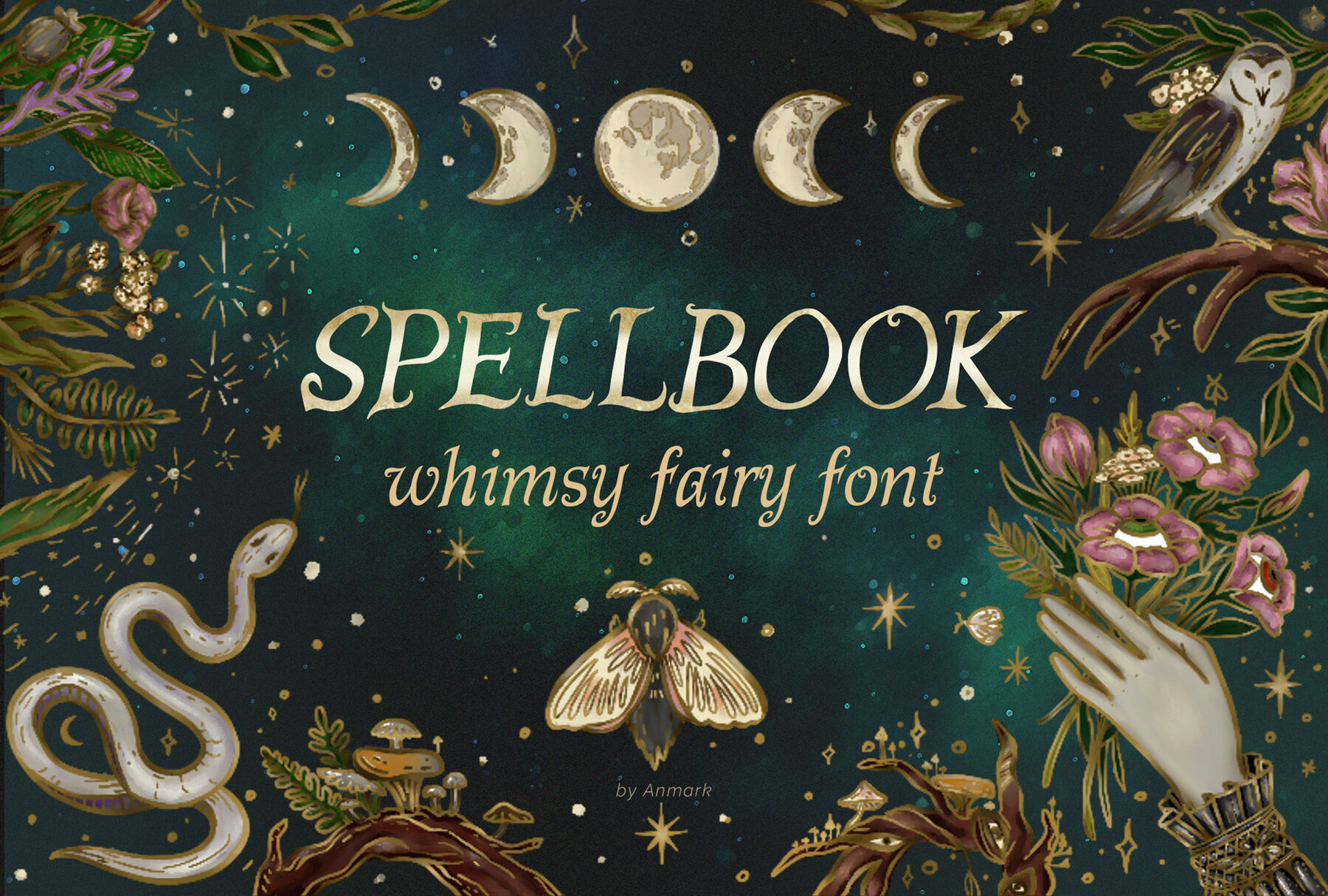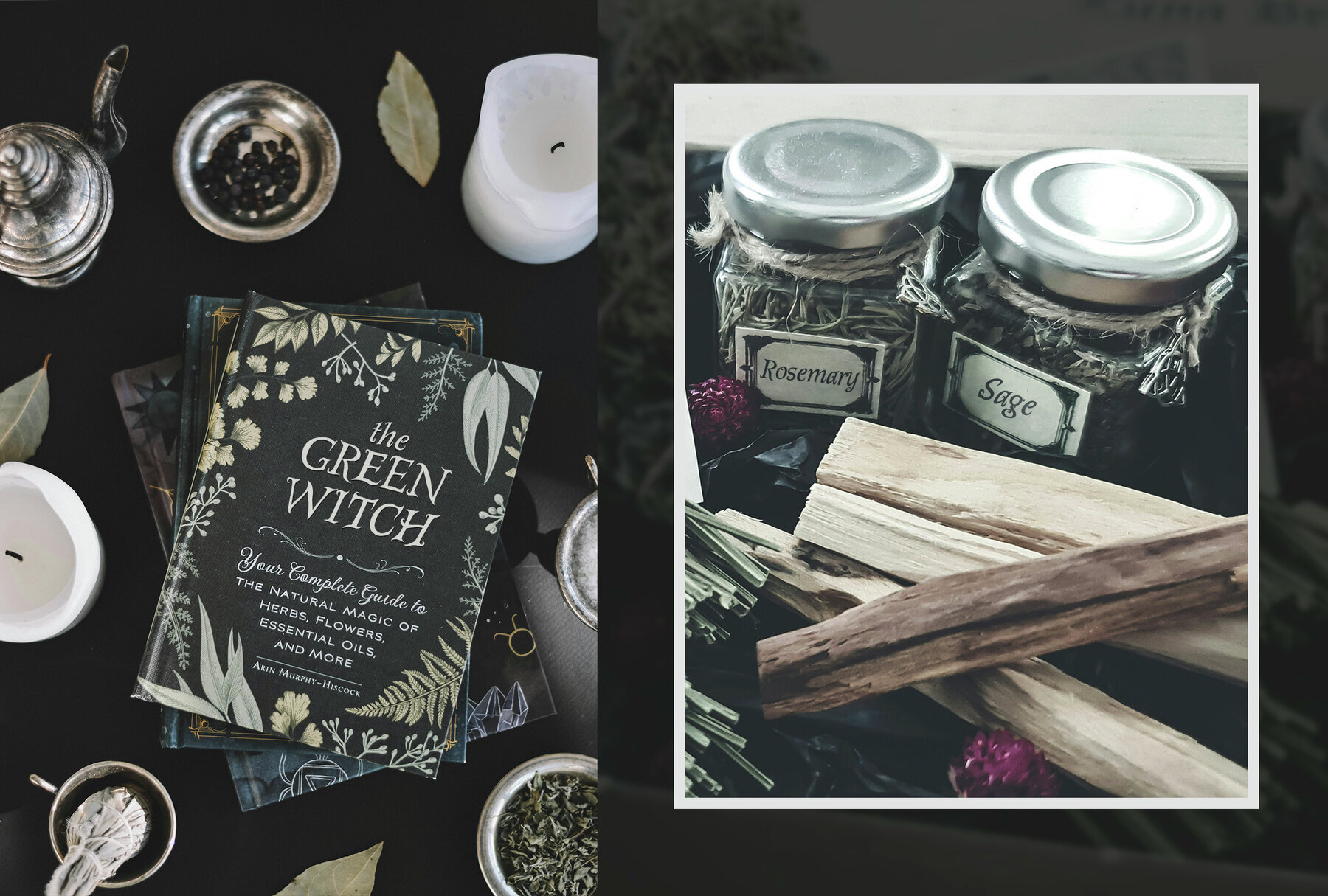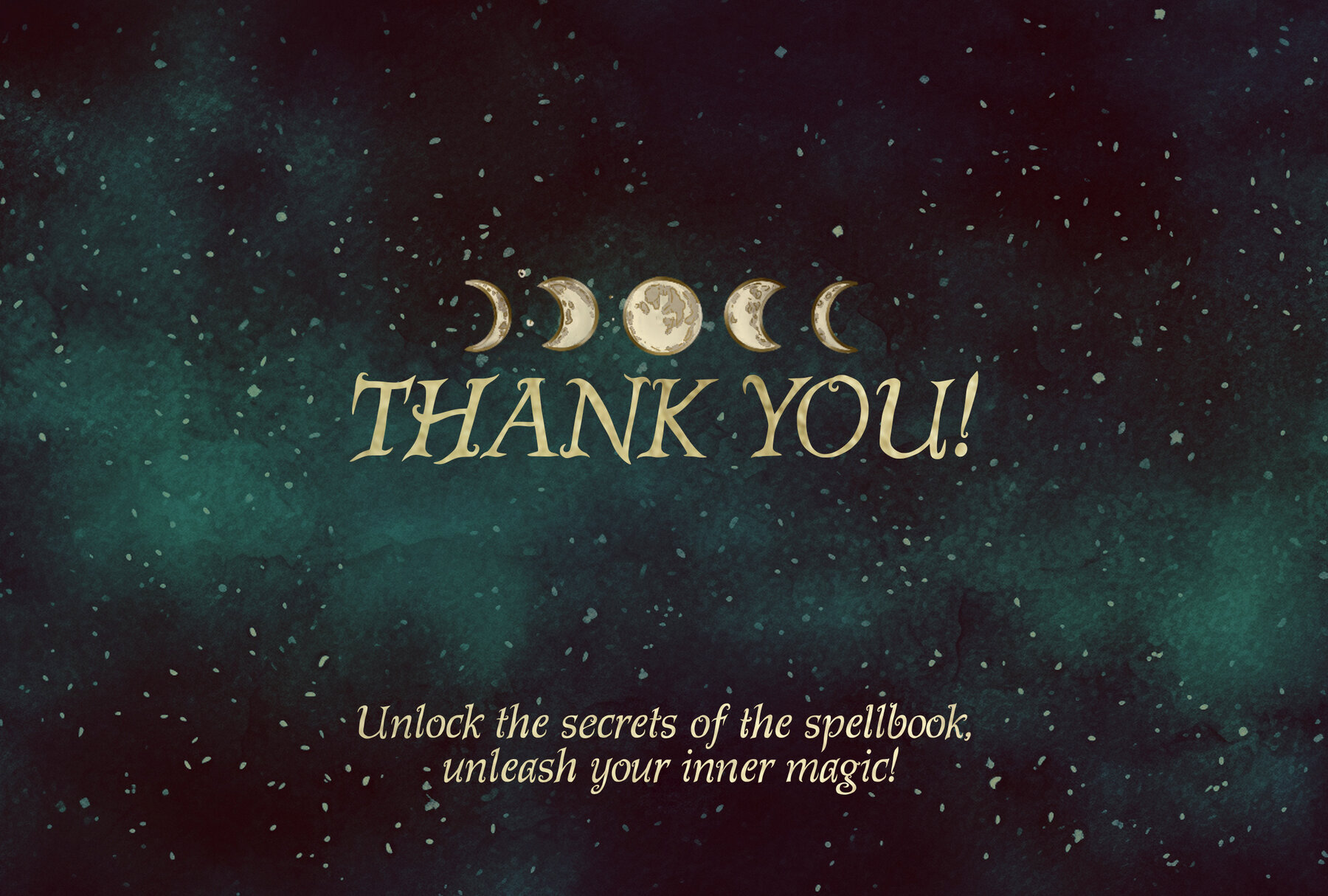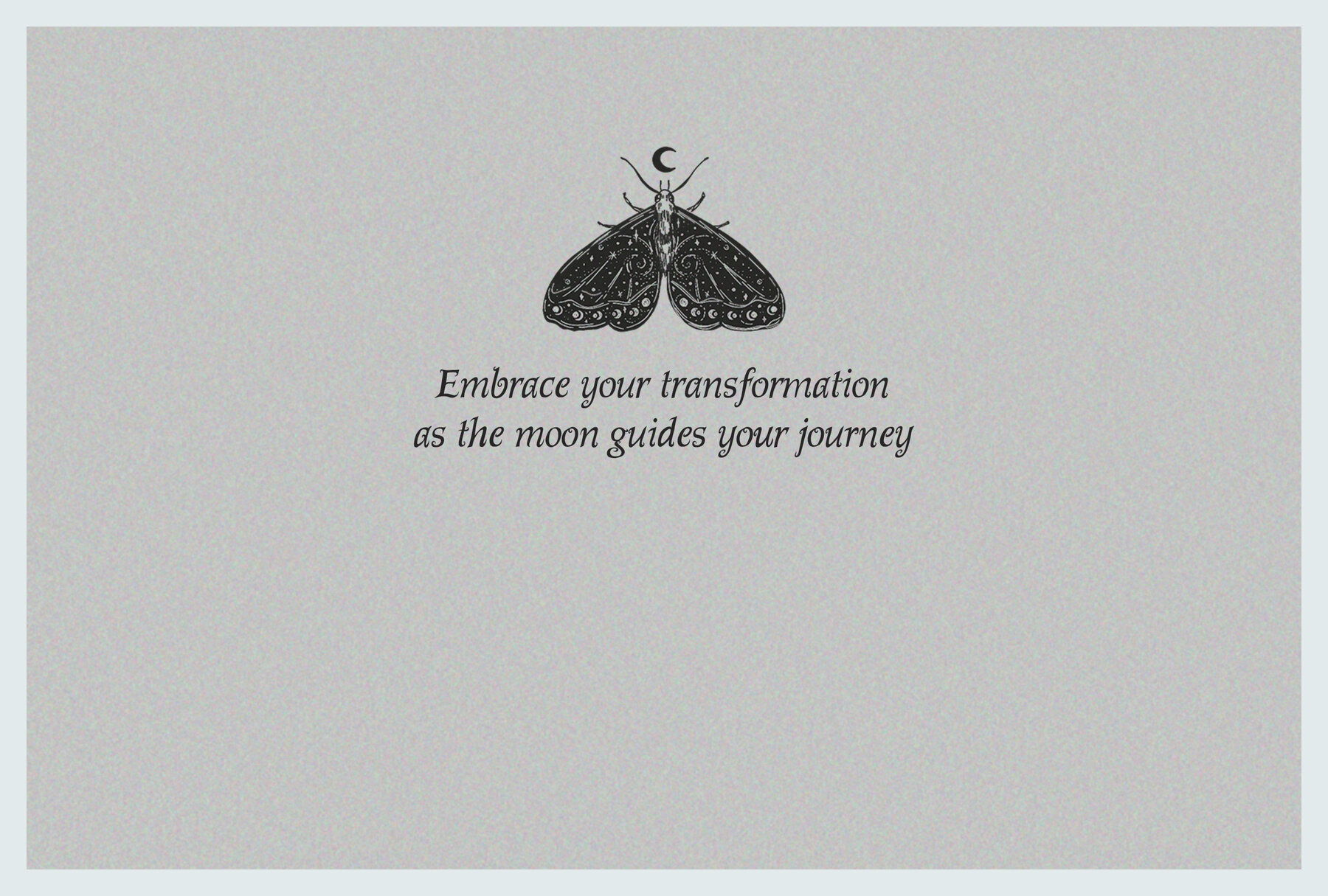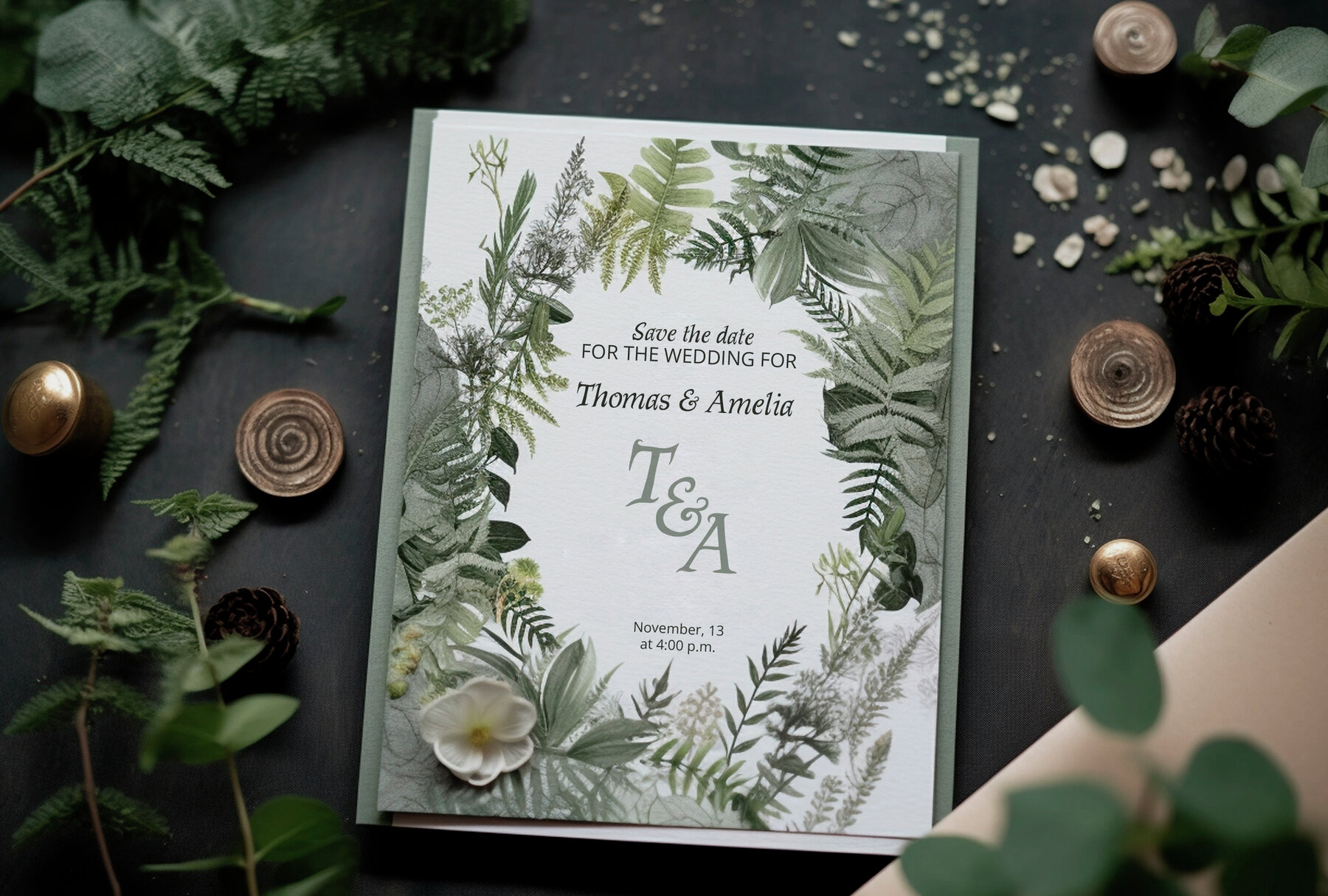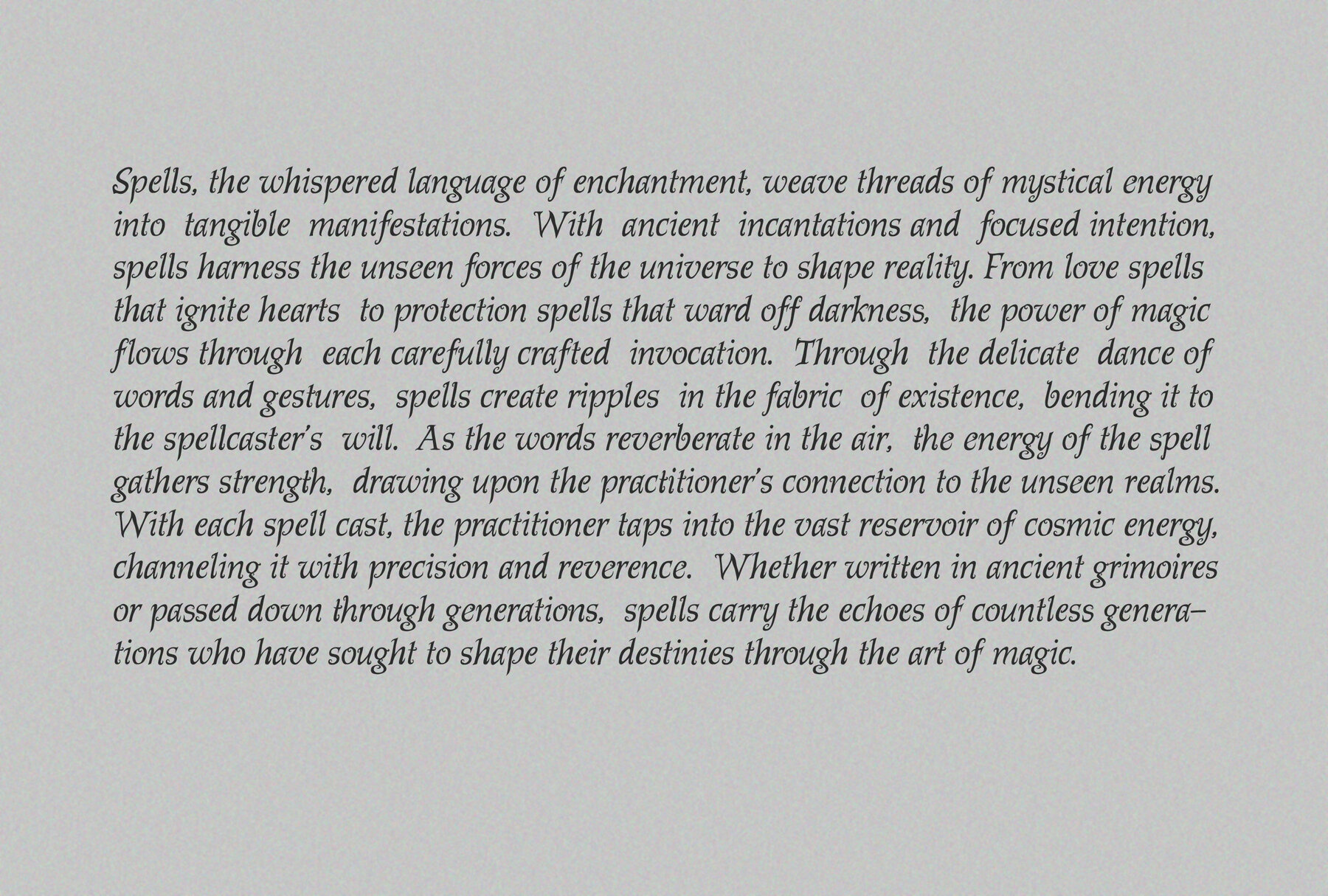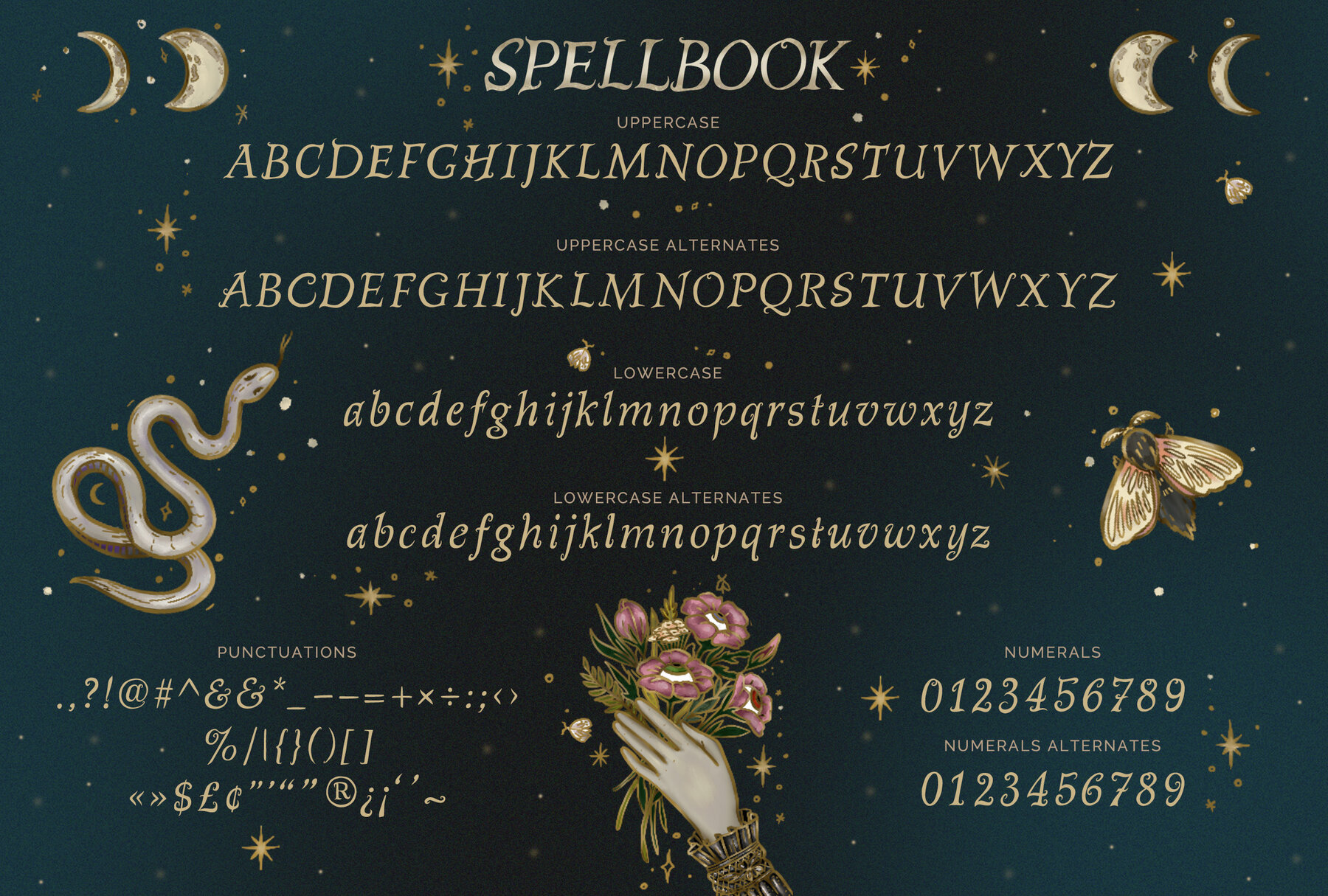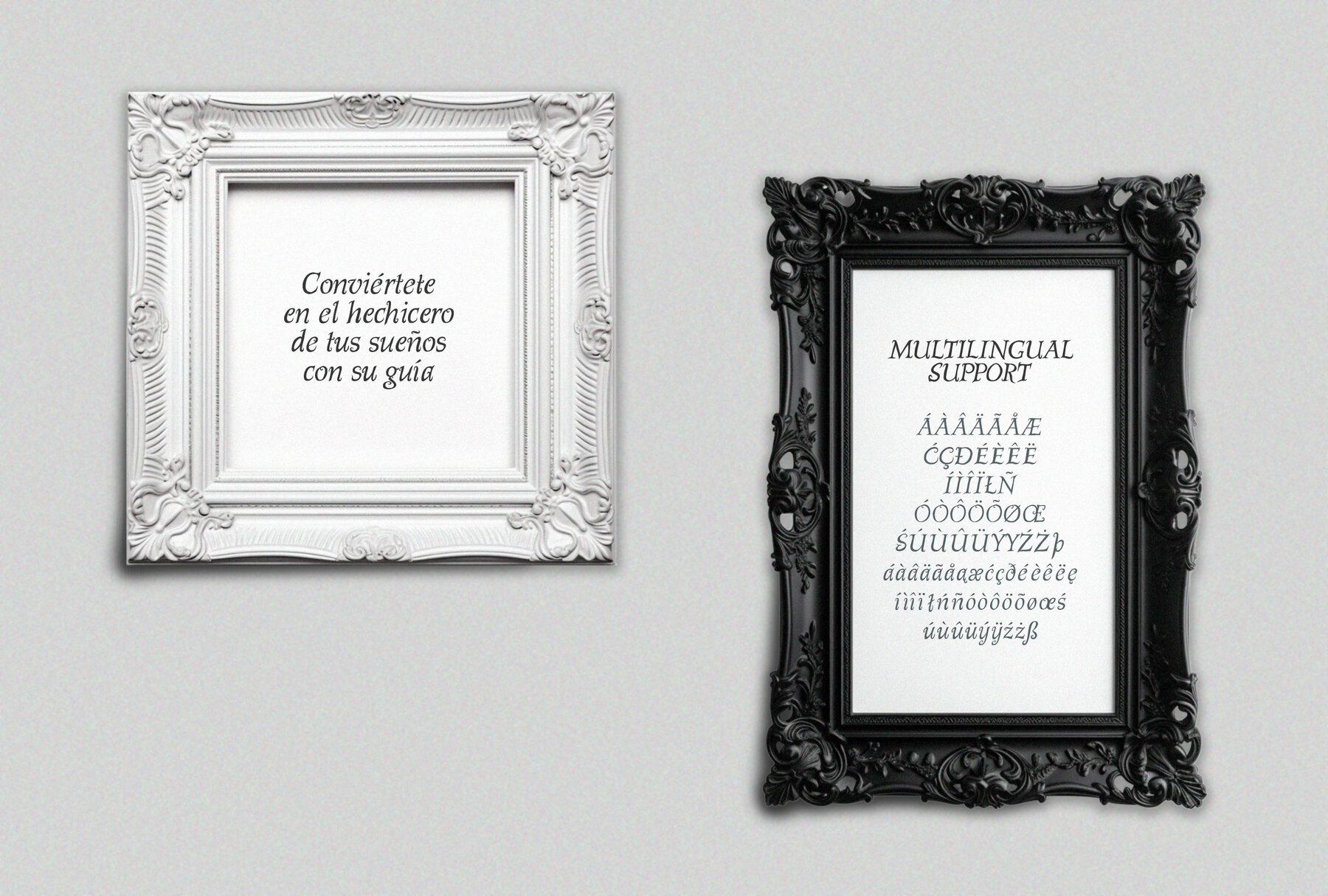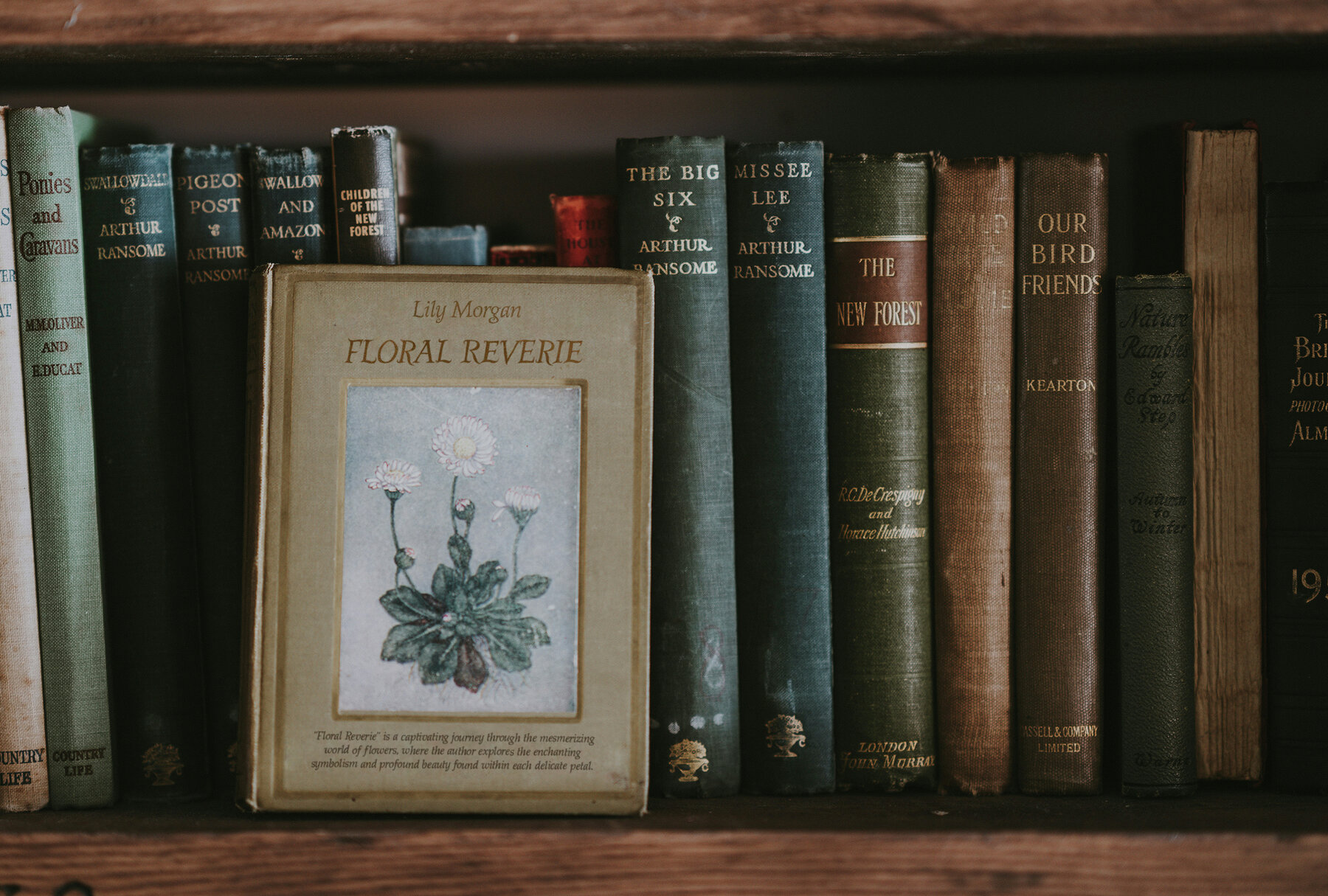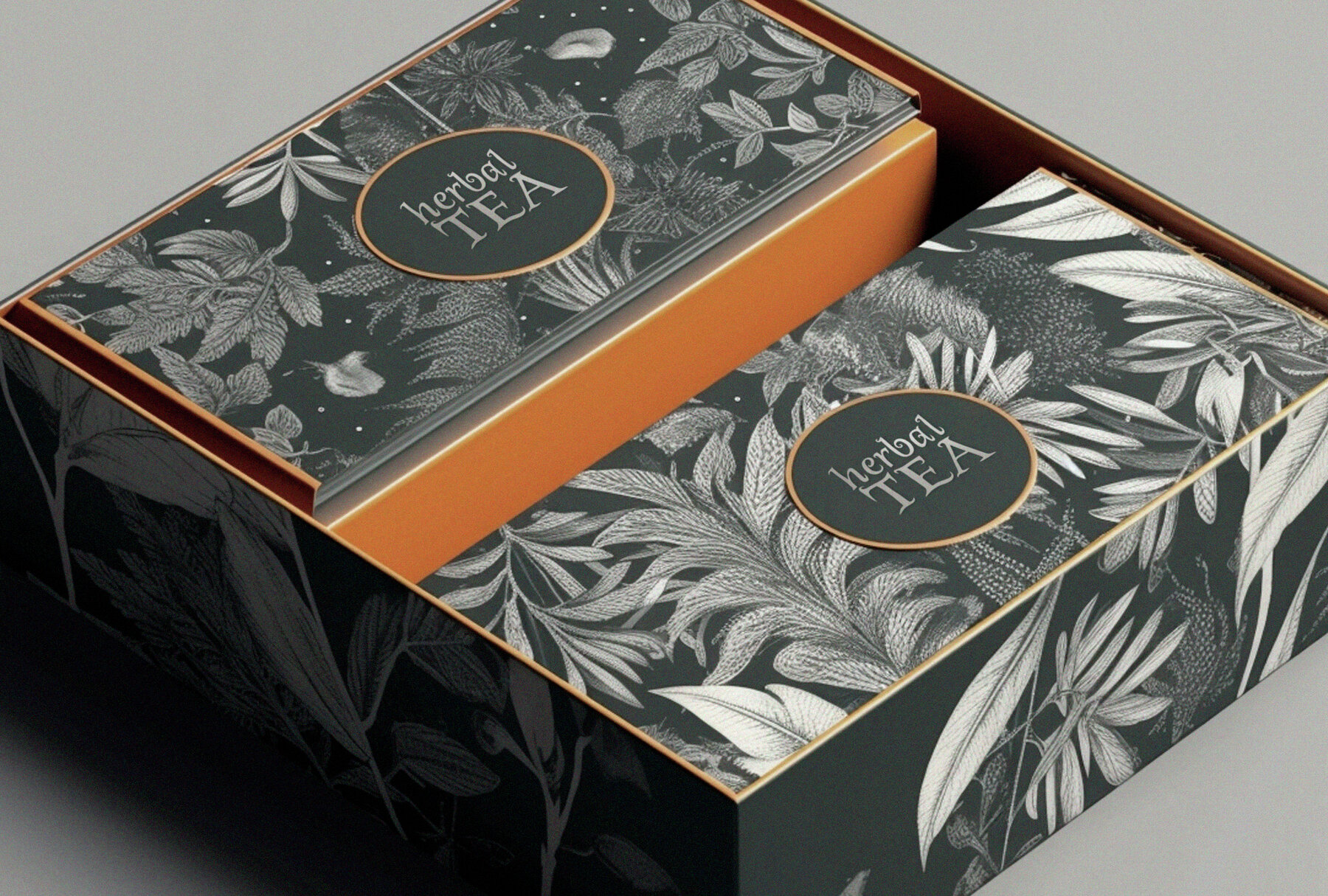
Introducing Spellbook, a whimsical serif font that transports you into the enchanting world of fairy tales and magic. This handwritten font captures the essence of mystery and wonder, perfect for bringing storybooks and children's tales to life. Its clean and playful design makes it ideal for book covers, tarot cards, children's storybooks, while its versatility lends itself to quotes, journals, invitations, greeting cards, logo and wedding stationery.